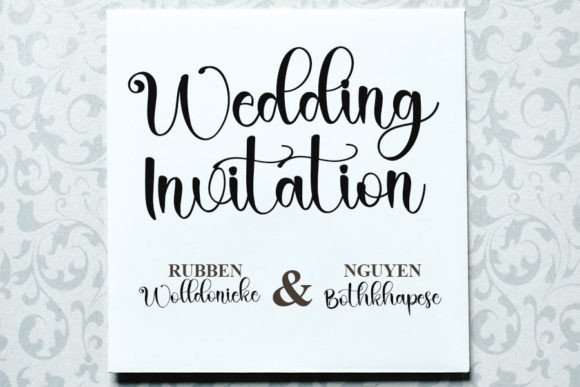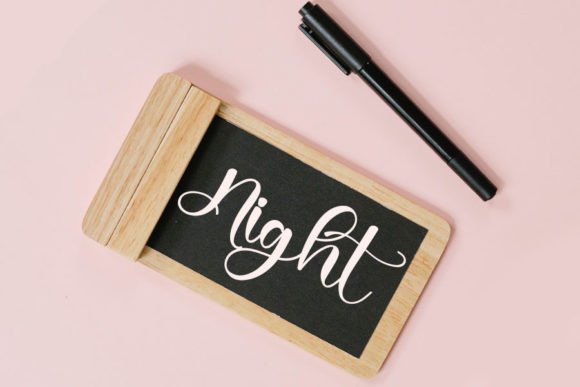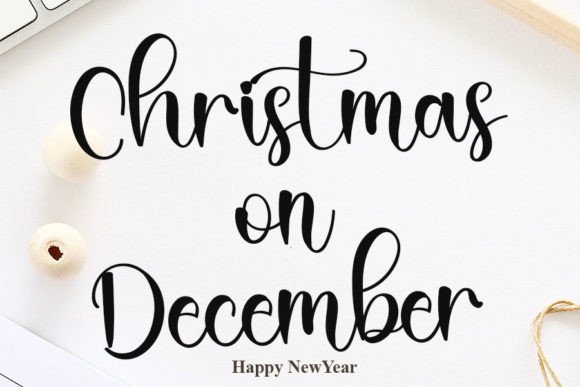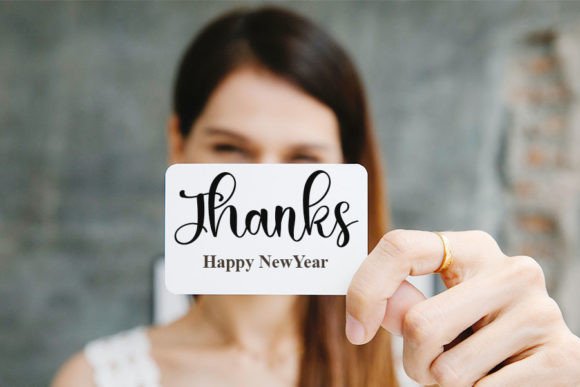
Introduction to Childs Font
Childs is a trendy handwritten font with a contemporary atmosphere and impeccable form, inspired by a timeless classic calligraphy.
It will add elegance and class to any of your design projects .
Key Features of Childs Font
Why Choose Childs Font?